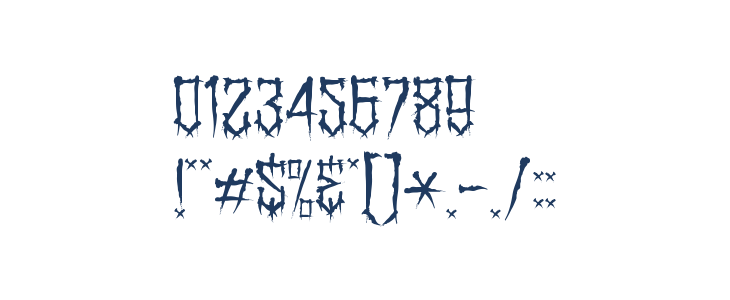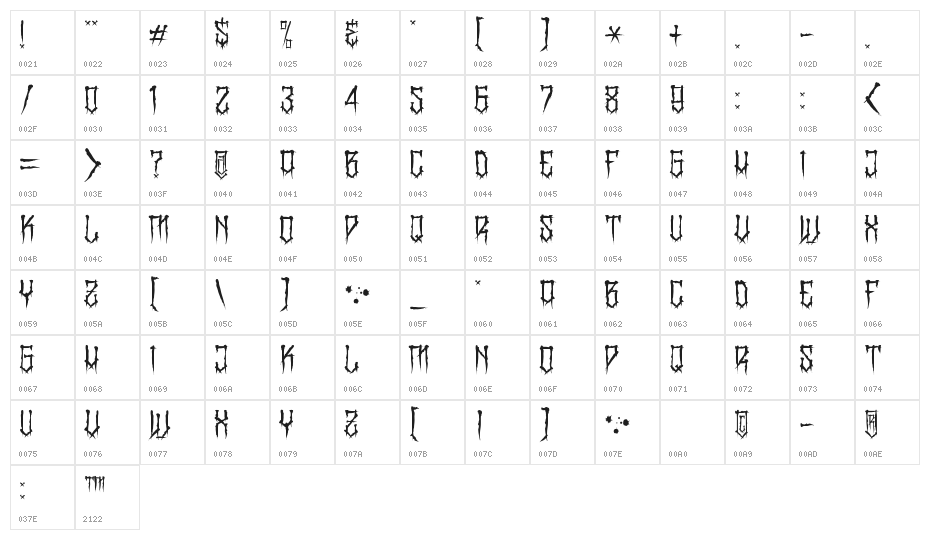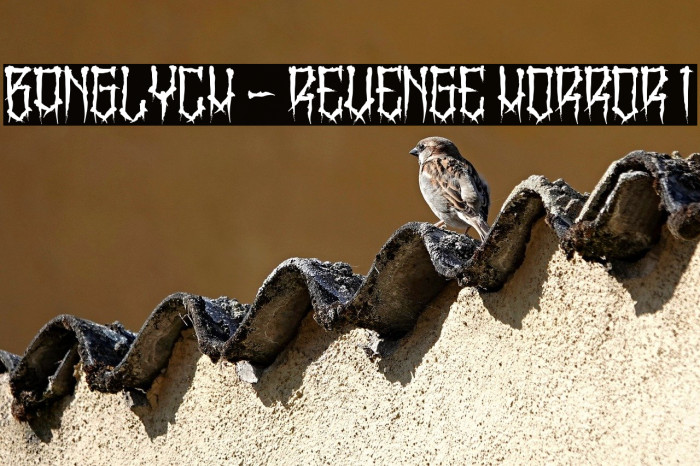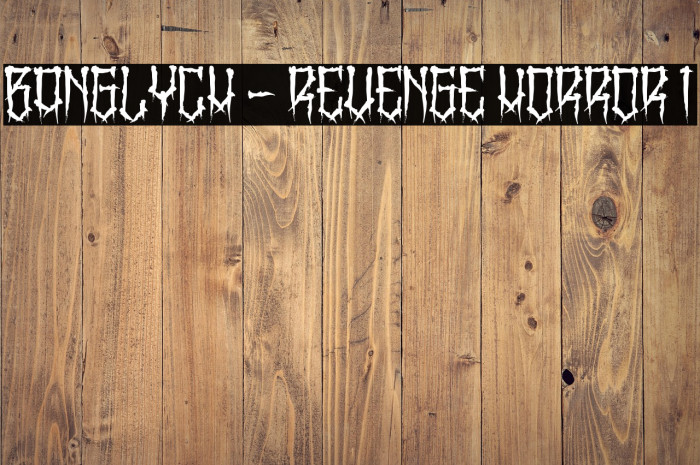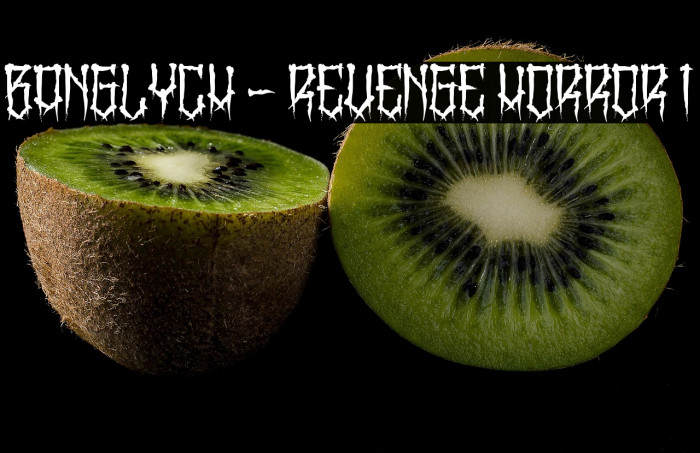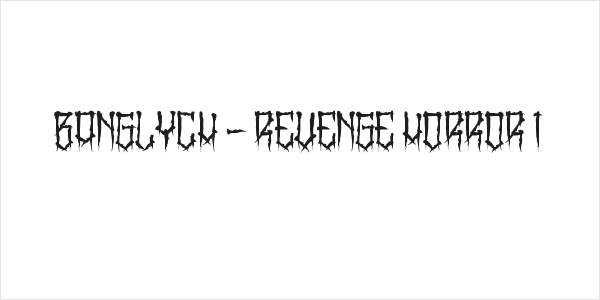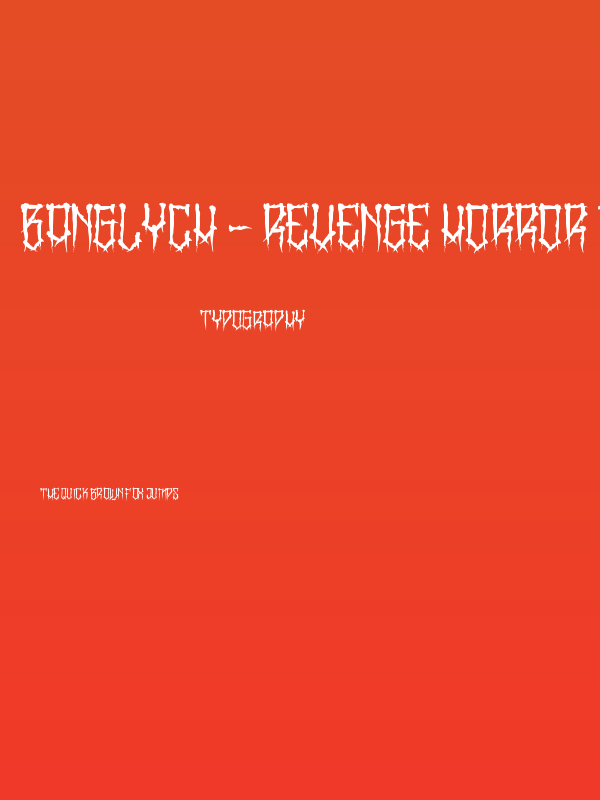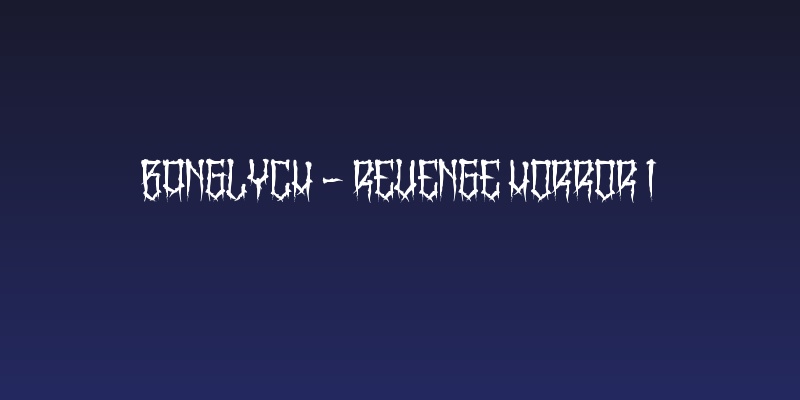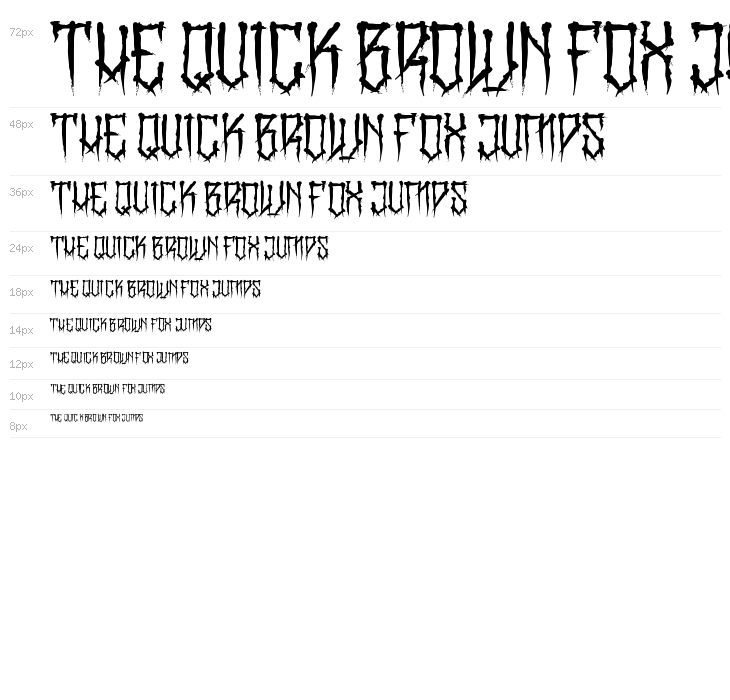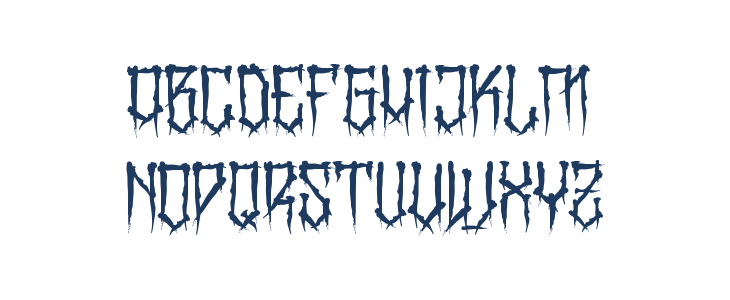
BangLYCH - Revenge Horror I Font
BangLYCH - Revenge Horror I Description
This font features a striking, jagged design reminiscent of horror and thriller themes. The characters are sharp and angular, with an appearance that suggests they are dripping or torn, evoking a sense of fear and suspense. The uppercase and lowercase letters maintain a consistent style, with each character exhibiting unique, irregular edges that enhance the unsettling aesthetic. Numbers and special characters follow the same design principles, ensuring a cohesive look across all elements. This font's dramatic and intense style makes it ideal for projects that require a bold, attention-grabbing visual impact.
| Overall Style | Horror, Dramatic |
| Use Case | Headlines, Posters, Themed Events |
| Proposed Projects | Ideal for horror movie posters, Halloween event flyers, and thriller book covers. |